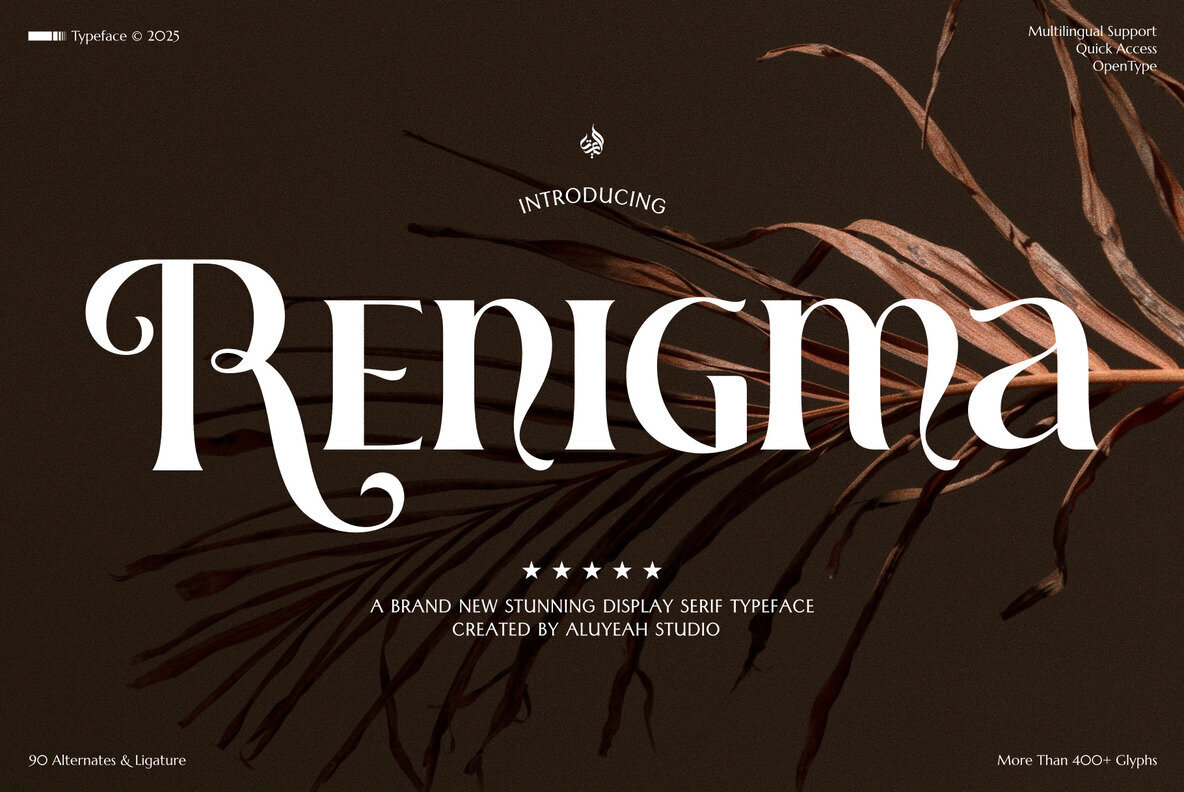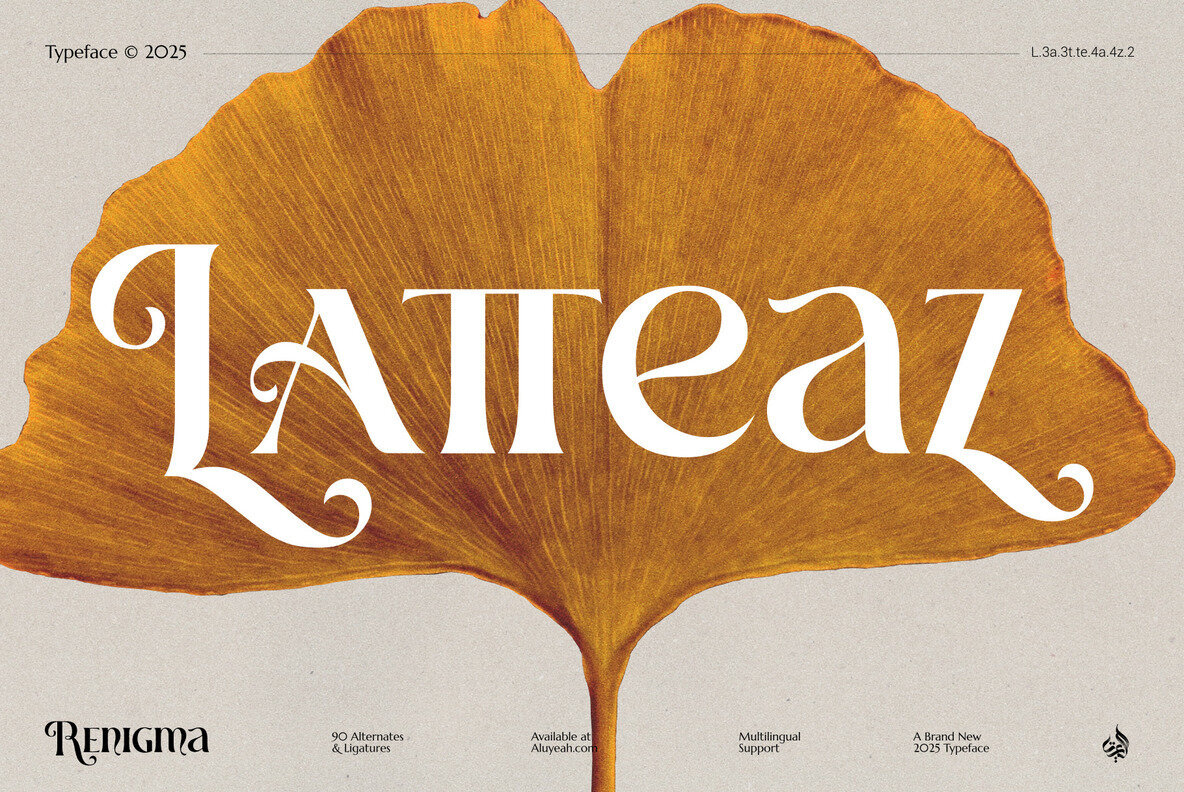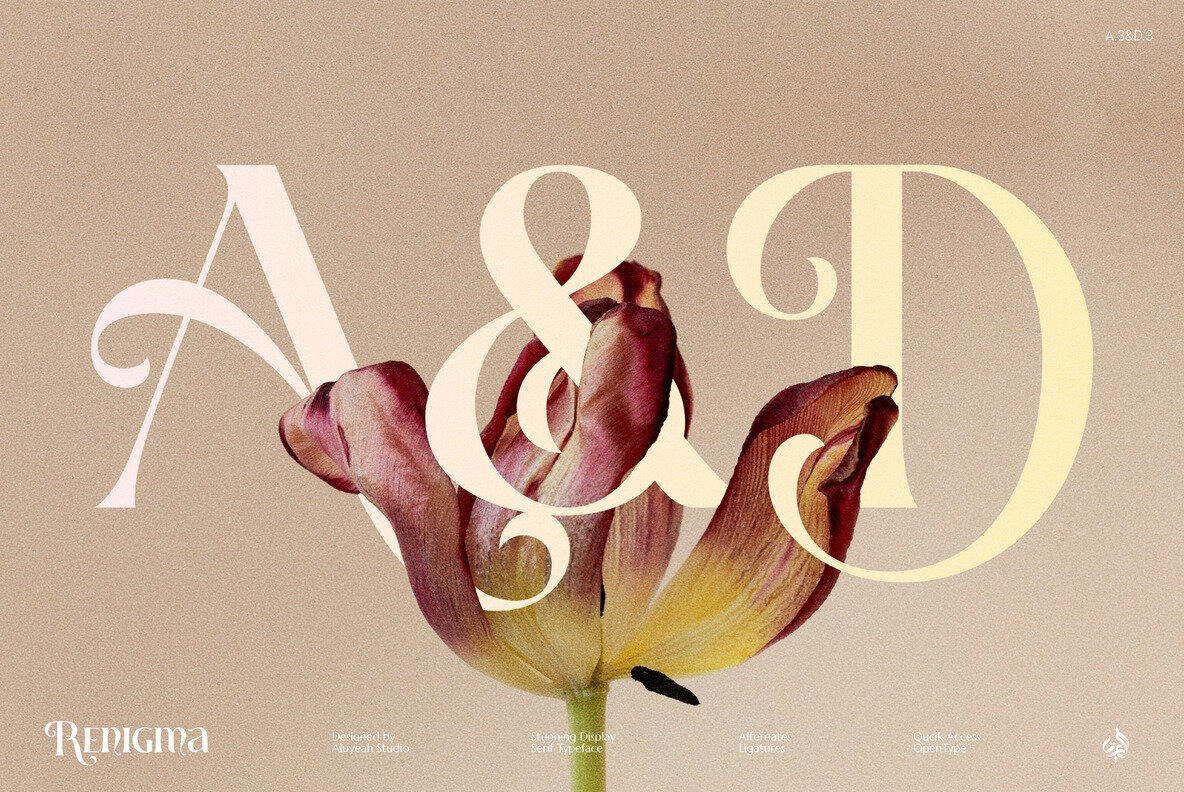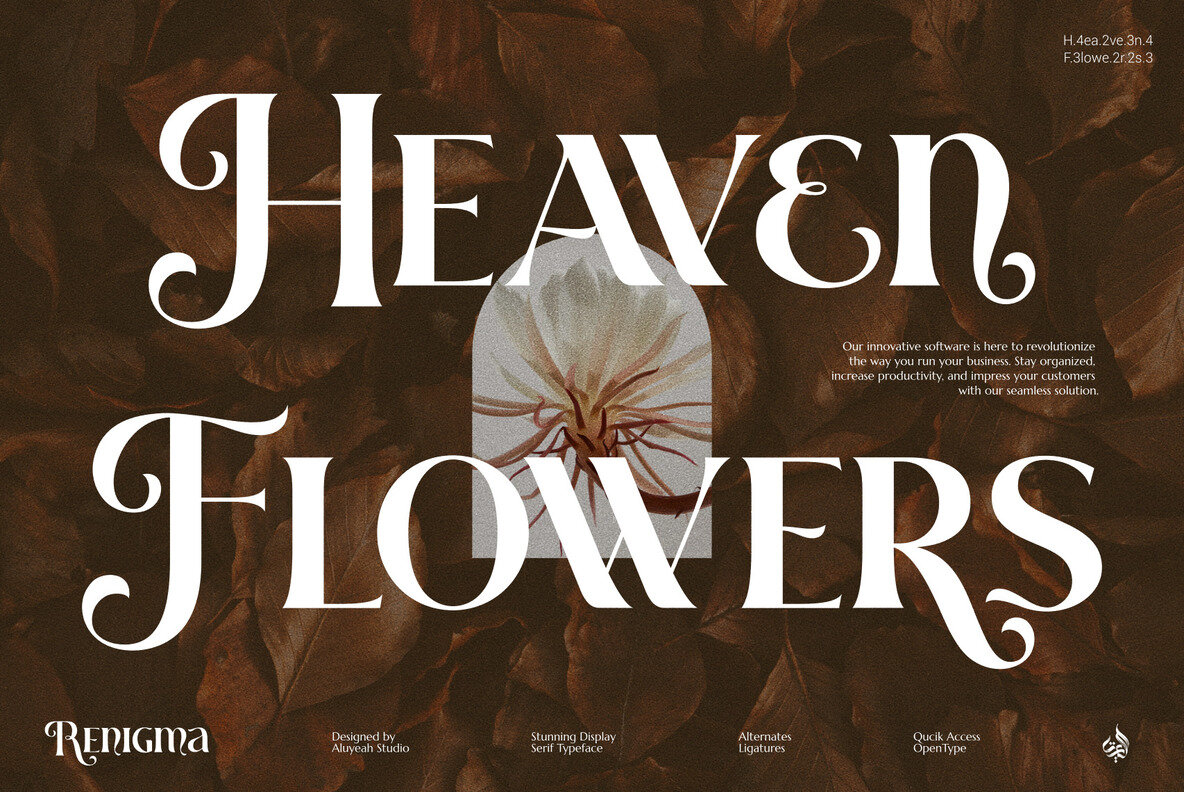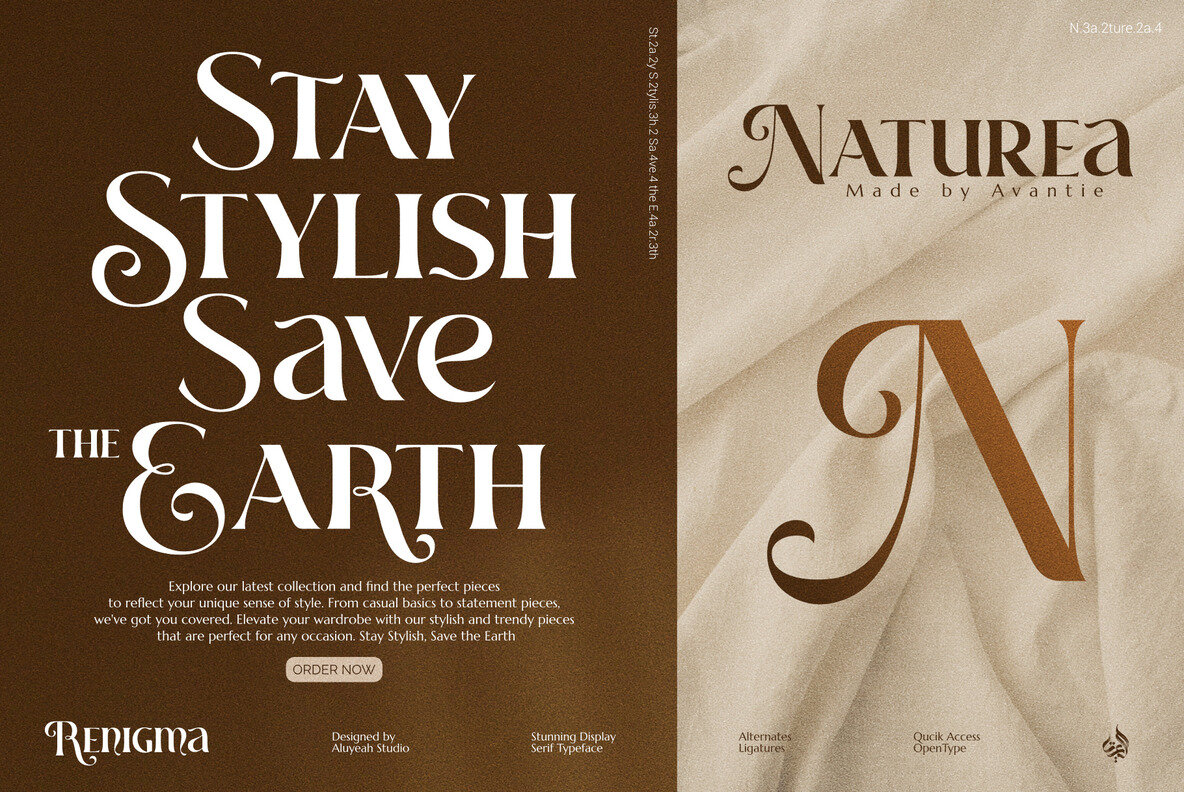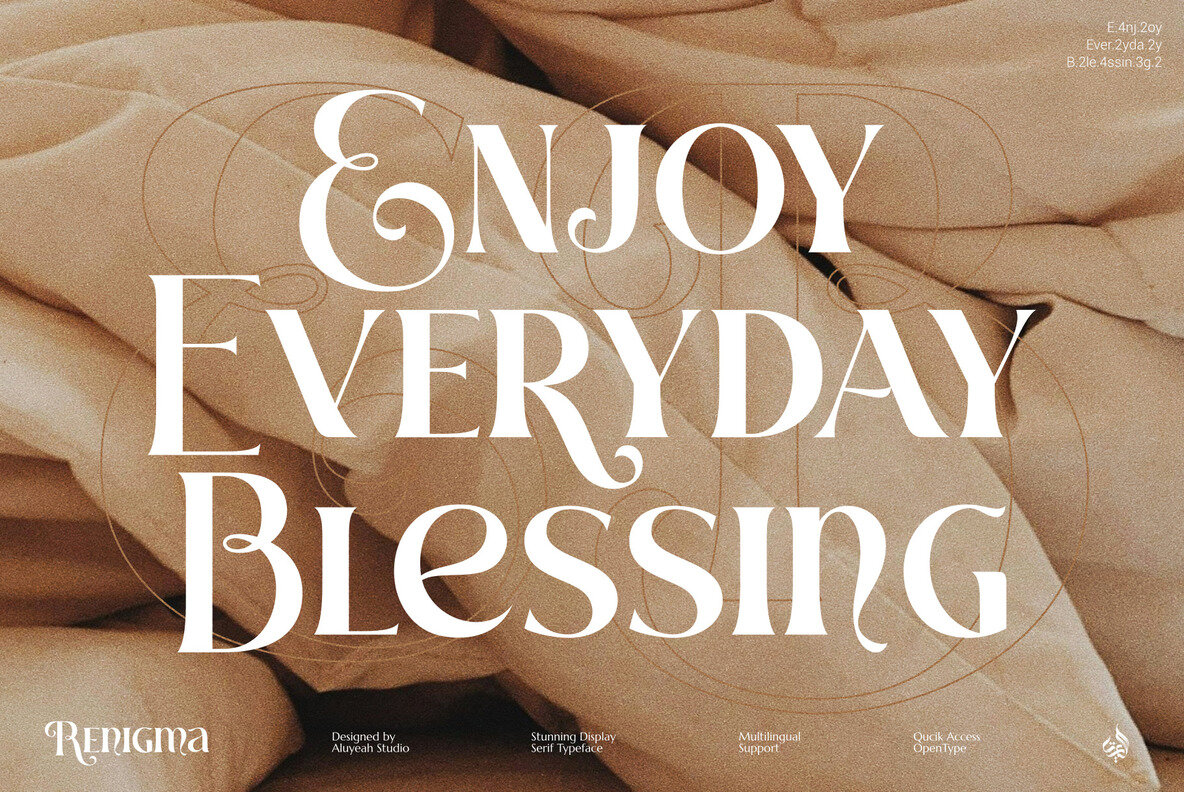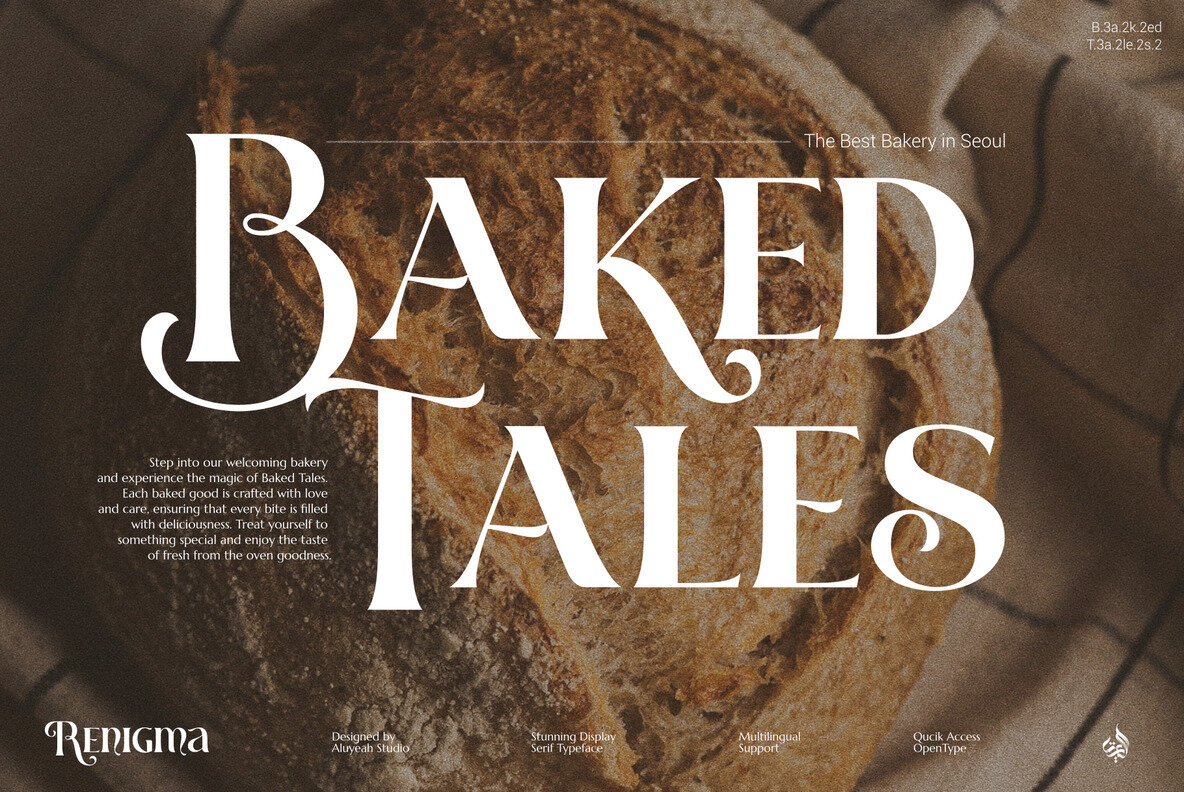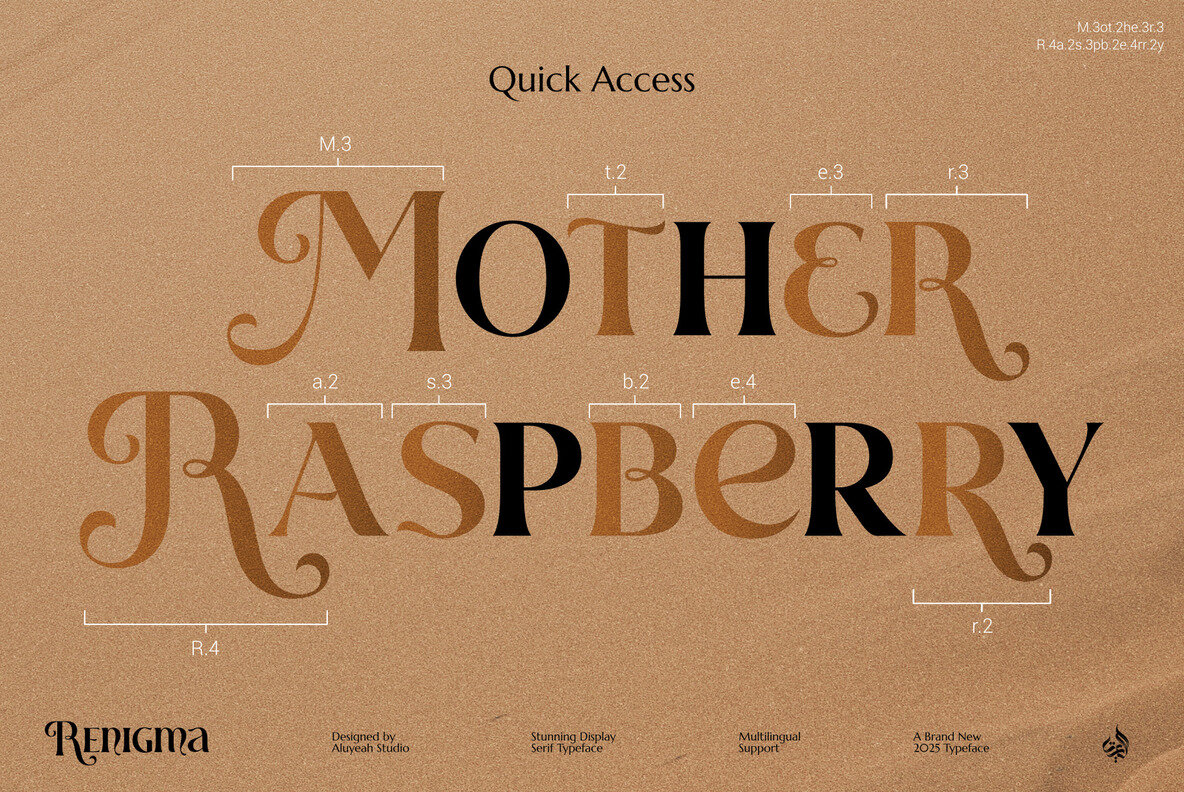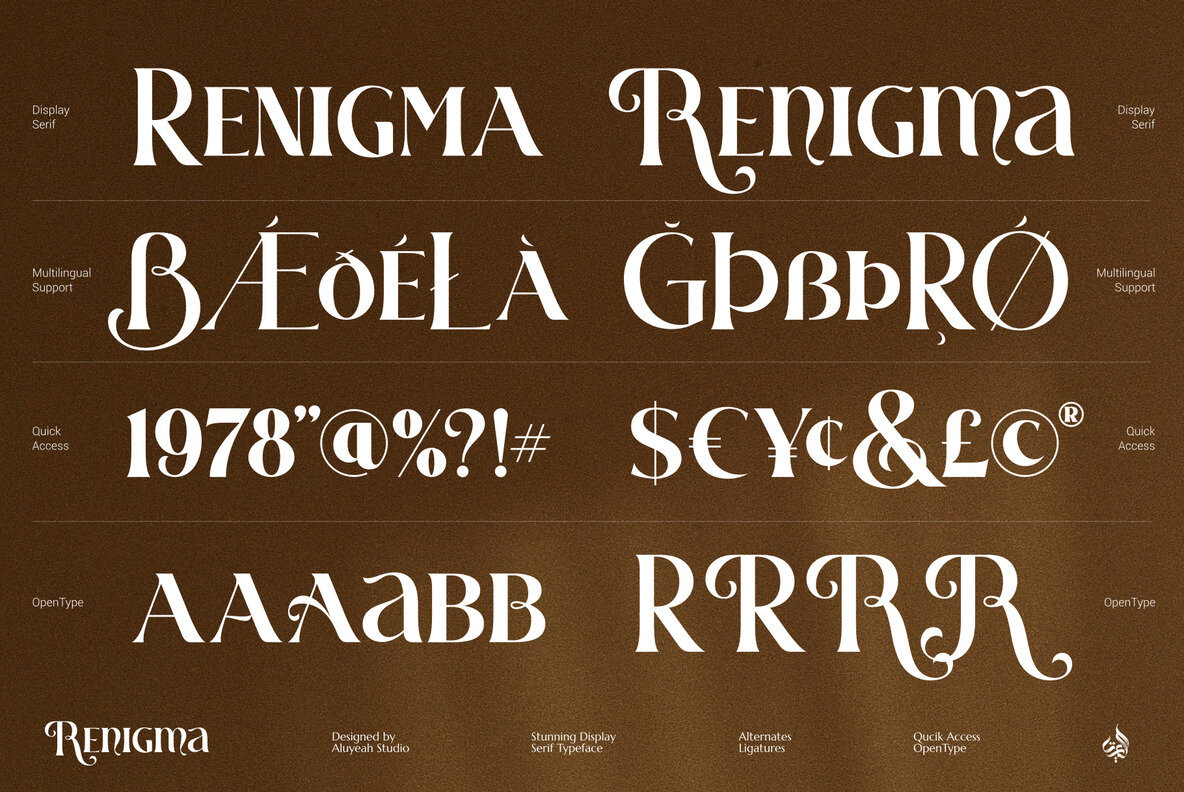
Renigma Font
Al Renigma
Renigma stands out as a refined display serif typeface designed for clarity and ease of use. Crafted to deliver visual appeal and effortless integration, Renigma is suitable for creators of all skill levels. The intuitive quick access system lets you access over 90 alternates and ligatures, adding flexibility and style to your branding, editorial layouts, or creative projects. With coverage for 67 languages, Renigma adapts to a variety of global design needs. This typeface includes more than 400 glyphs, ensuring a wide range of creative options. Whether designing for print or digital media, Renigma’s multilingual support and OpenType features provide essential versatility. The PUA encoding simplifies finding and applying its alternate characters, making it easy to refine letterforms and stylistic combinations with precision.Renigma Display Serif Typeface